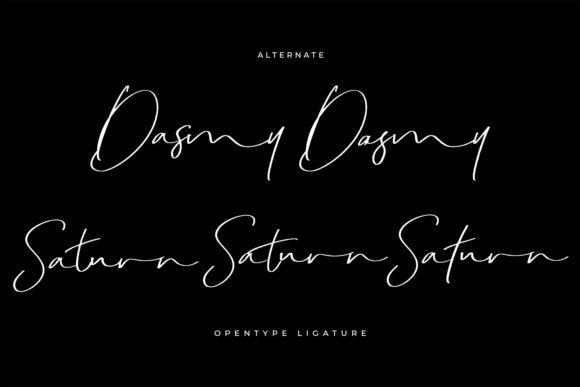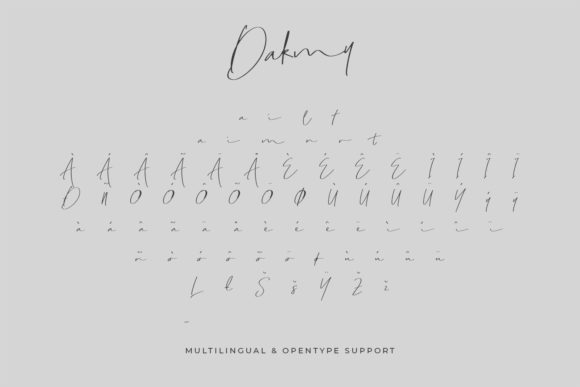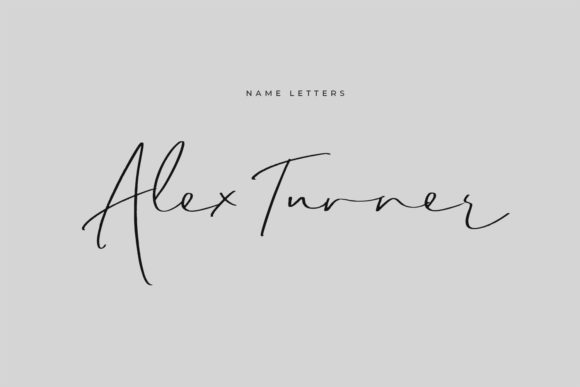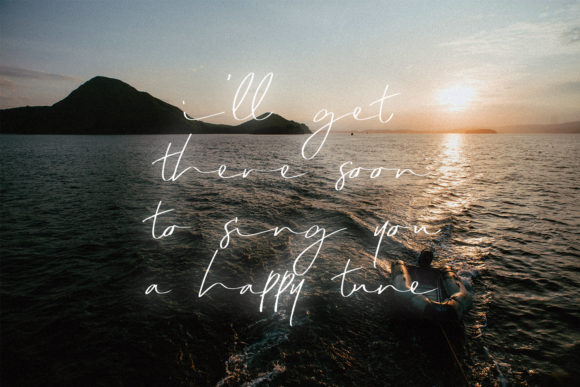
About Dakmy Font
Dakmy is a delicate and elegant handwritten font that exudes sophistication and beauty. With its distinct and well-rounded letters, this font is a true masterpiece that can elevate any design project to new heights.
The beauty of Dakmy lies in its versatility. Whether you’re creating wedding invitations, branding materials, logos, or social media graphics, this font adapts effortlessly to various design styles and themes. Its delicate strokes and graceful curves add an air of elegance and refinement to your creations.
When it comes to wedding invitations, Dakmy is a perfect choice. Its elegant and sophisticated appearance sets the tone for a romantic and memorable event. The delicate nature of the font adds a touch of intimacy and grace, making your invitations stand out and leave a lasting impression on recipients.
Branding materials also benefit from the charm of Dakmy. Whether you’re designing a logo, business cards, or packaging, this font brings a sense of elegance and sophistication to your brand identity. Its distinct letters and well-rounded forms create a visual impact that captures attention and conveys professionalism.
In addition, Dakmy shines when used in quotes, social media graphics, and other design elements. Its delicate and elegant style adds a touch of refinement to inspirational quotes, making them more visually appealing and impactful. When incorporated into social media graphics, Dakmy helps create a cohesive and aesthetically pleasing feed that engages and captivates your audience.
Furthermore, Dakmy’s versatility extends to its legibility across different mediums and sizes. Whether you’re using it for print or digital purposes, the font remains clear and readable, ensuring that your message comes across effectively to your audience.
In summary, Dakmy is a delicate and elegant handwritten font that brings a touch of sophistication to your designs. Its distinct and well-rounded letters make it a true masterpiece, capable of enhancing any design project. Fall in love with the versatility of Dakmy and create spectacular designs that leave a lasting impression.